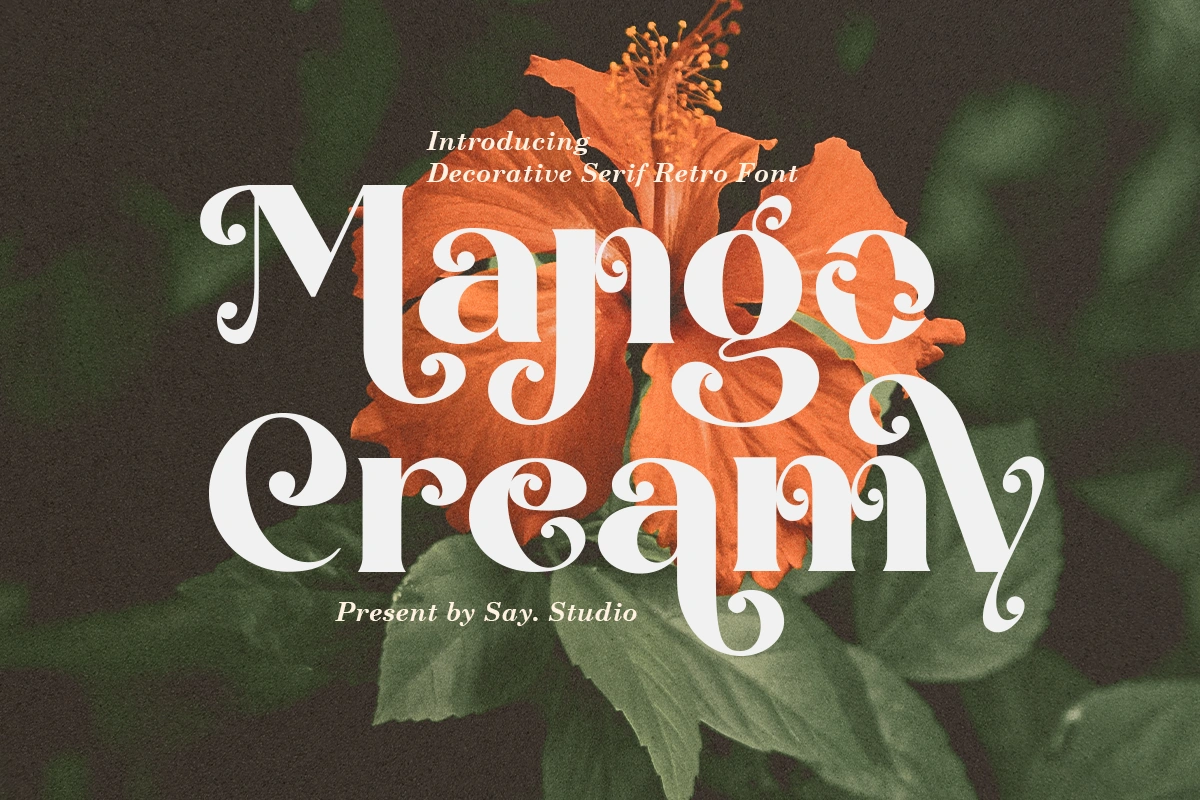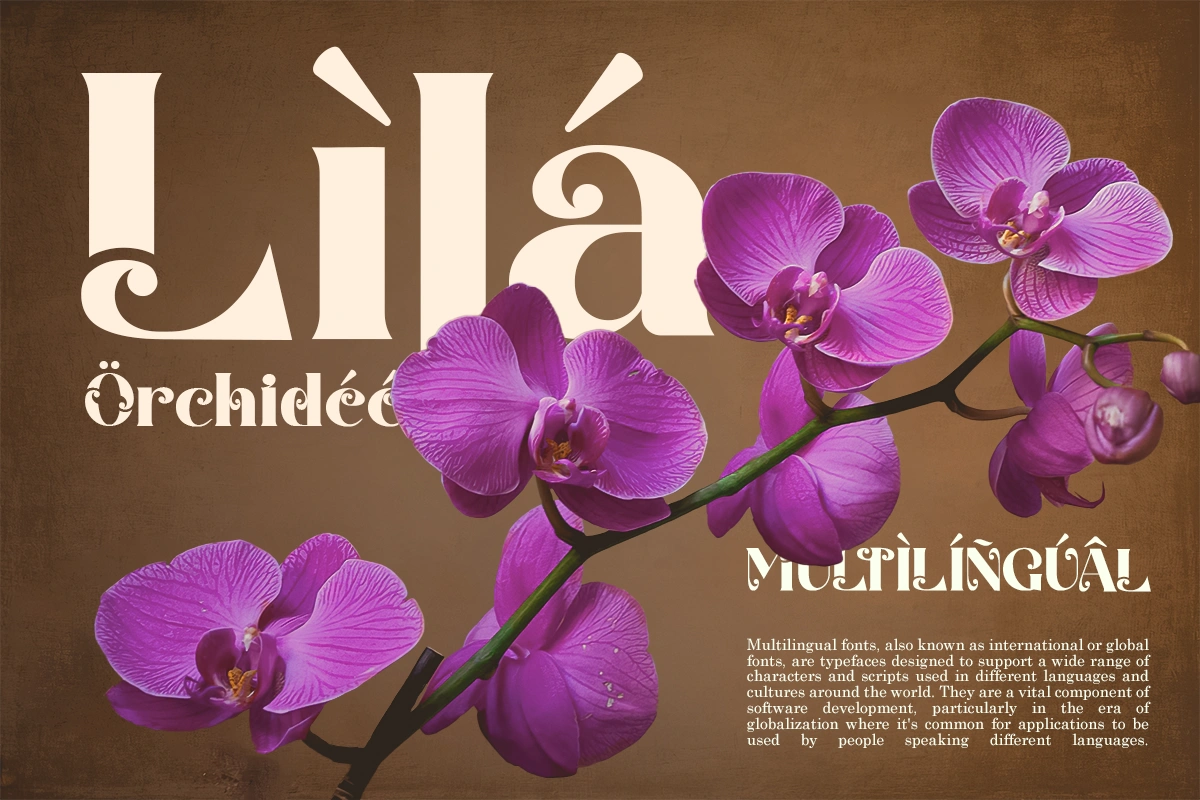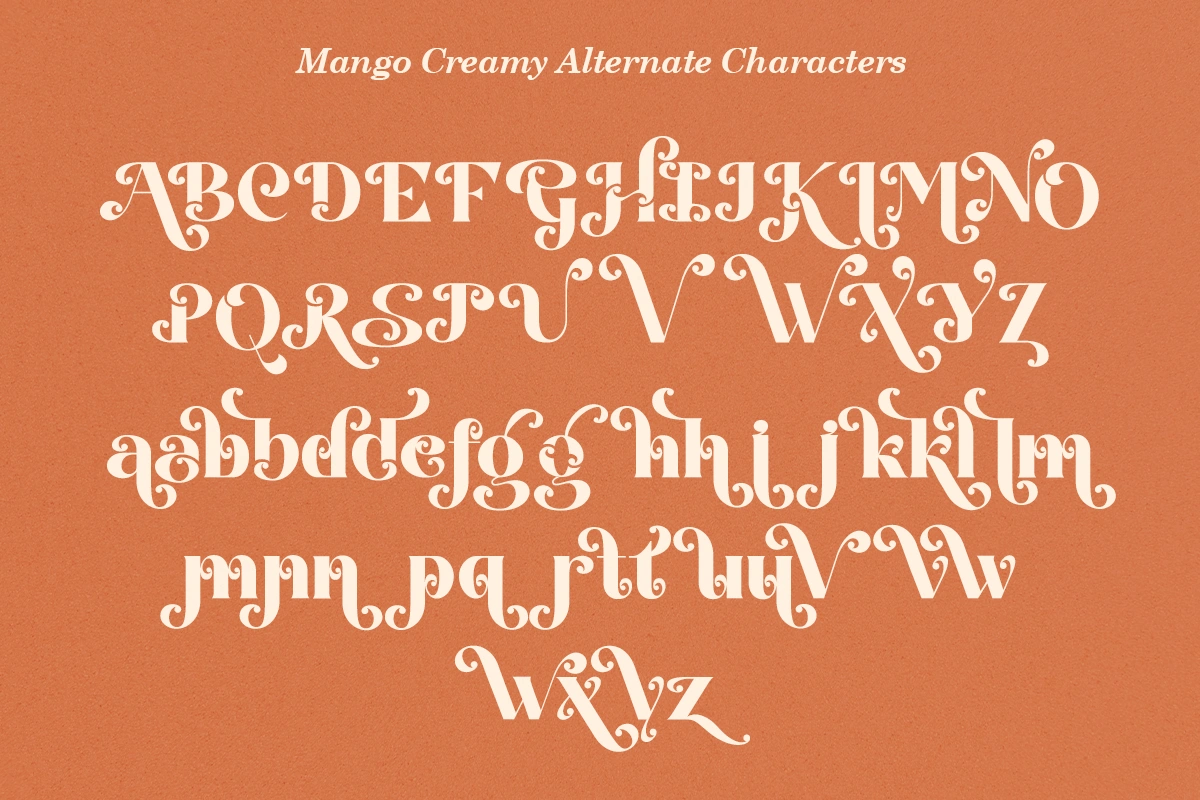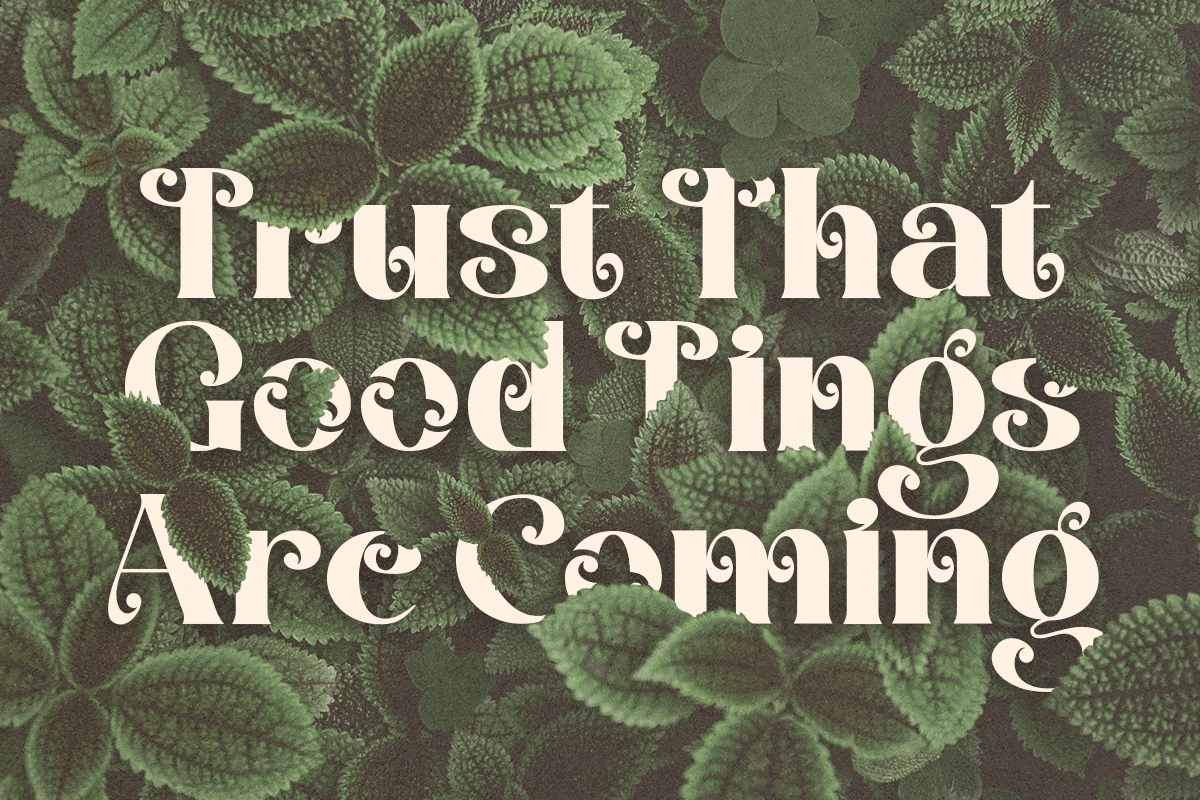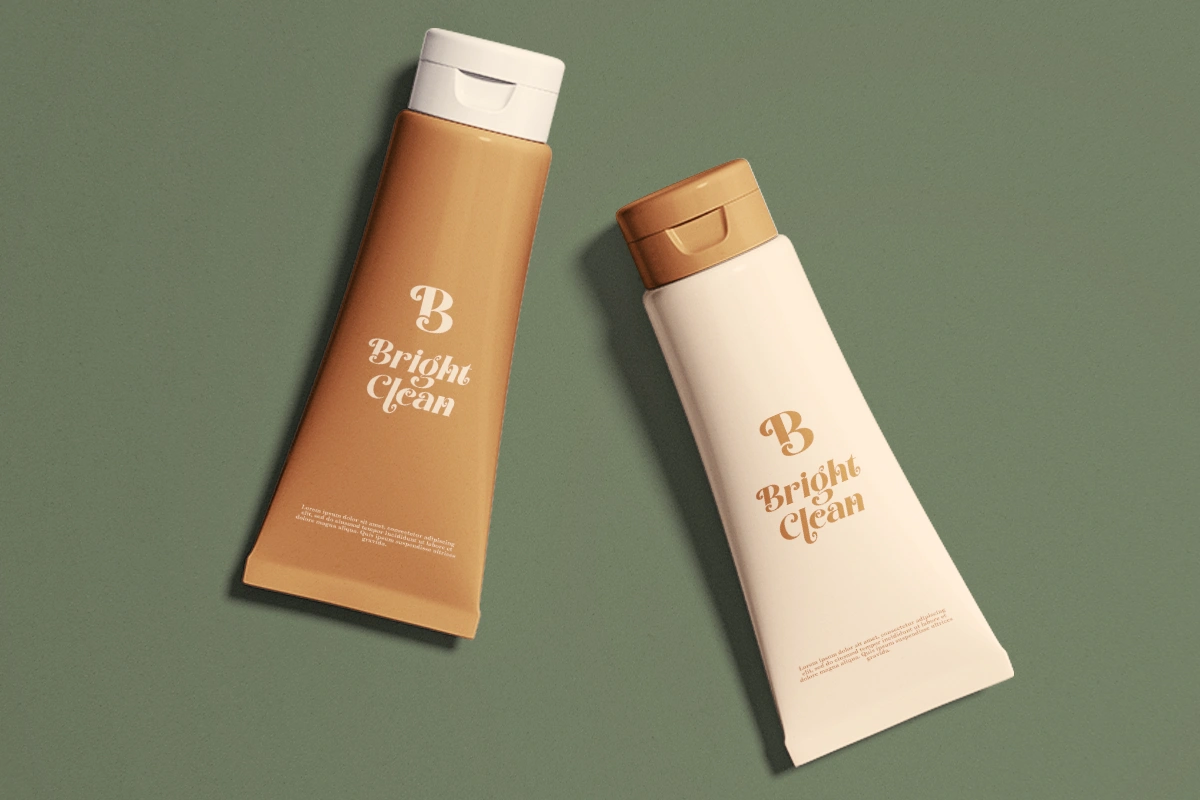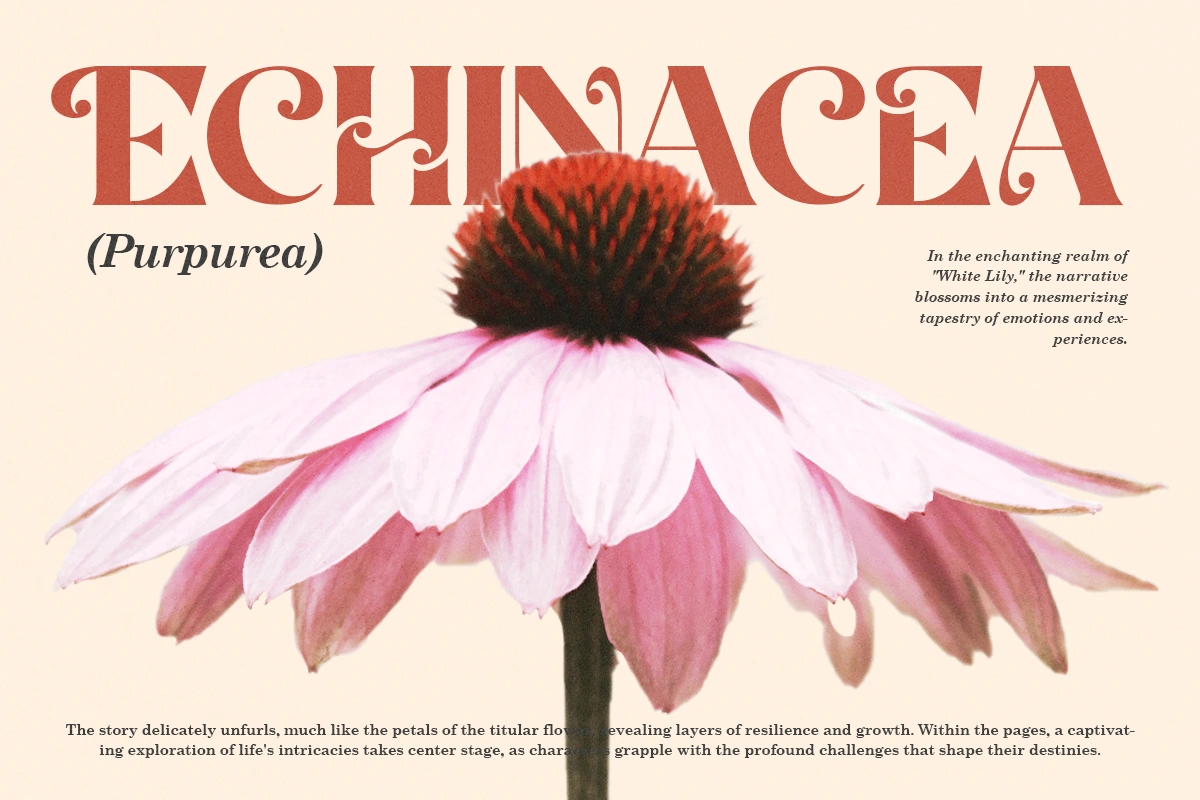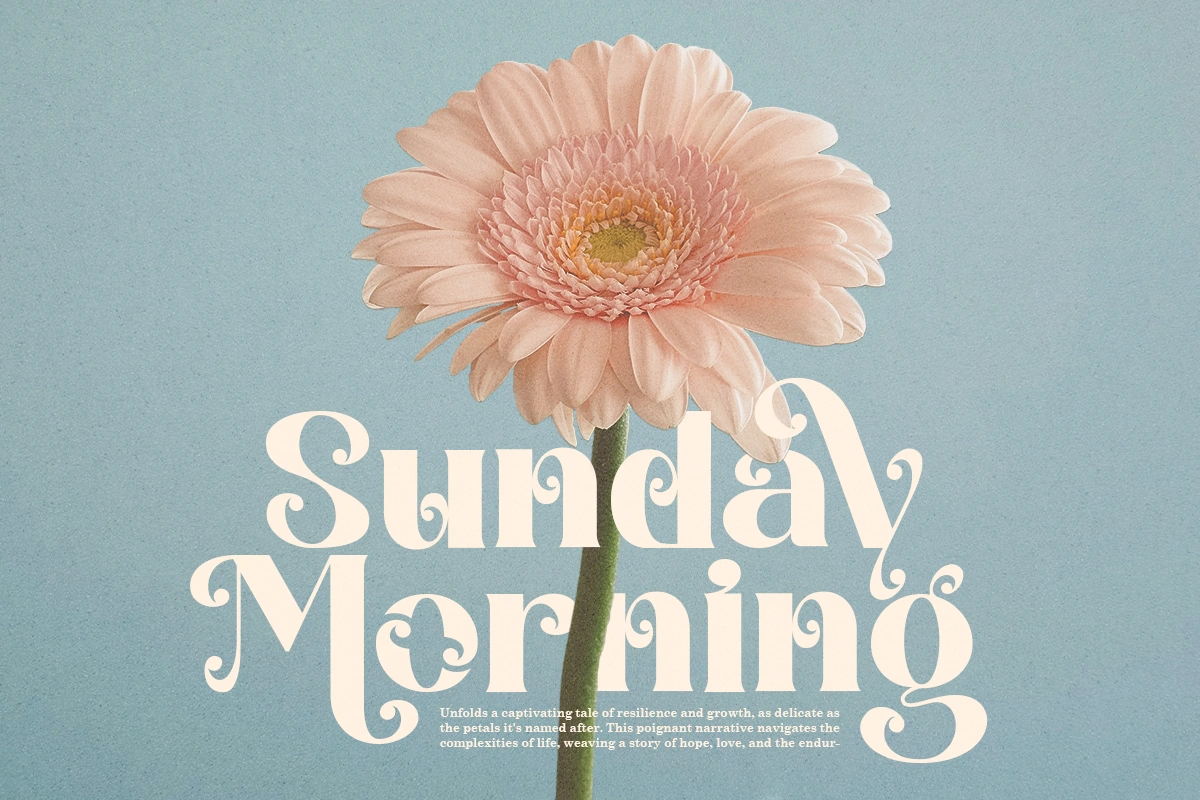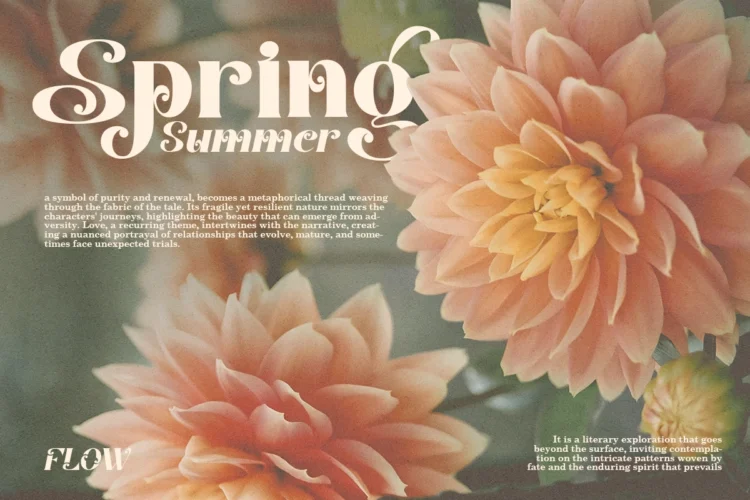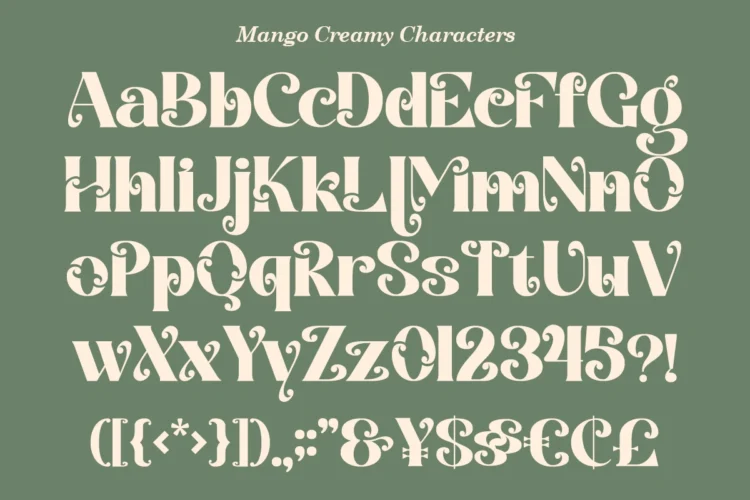
Mango Creamy – Serif Font
Mango Creamy font is a stylish and fashionable display typeface that exudes elegance and sophistication. With its sleek lines and smooth curves, it captures attention and adds a touch of luxury to any design. Perfect for branding, packaging, headlines, and editorial layouts, Mango Creamy font elevates the visual appeal effortlessly.